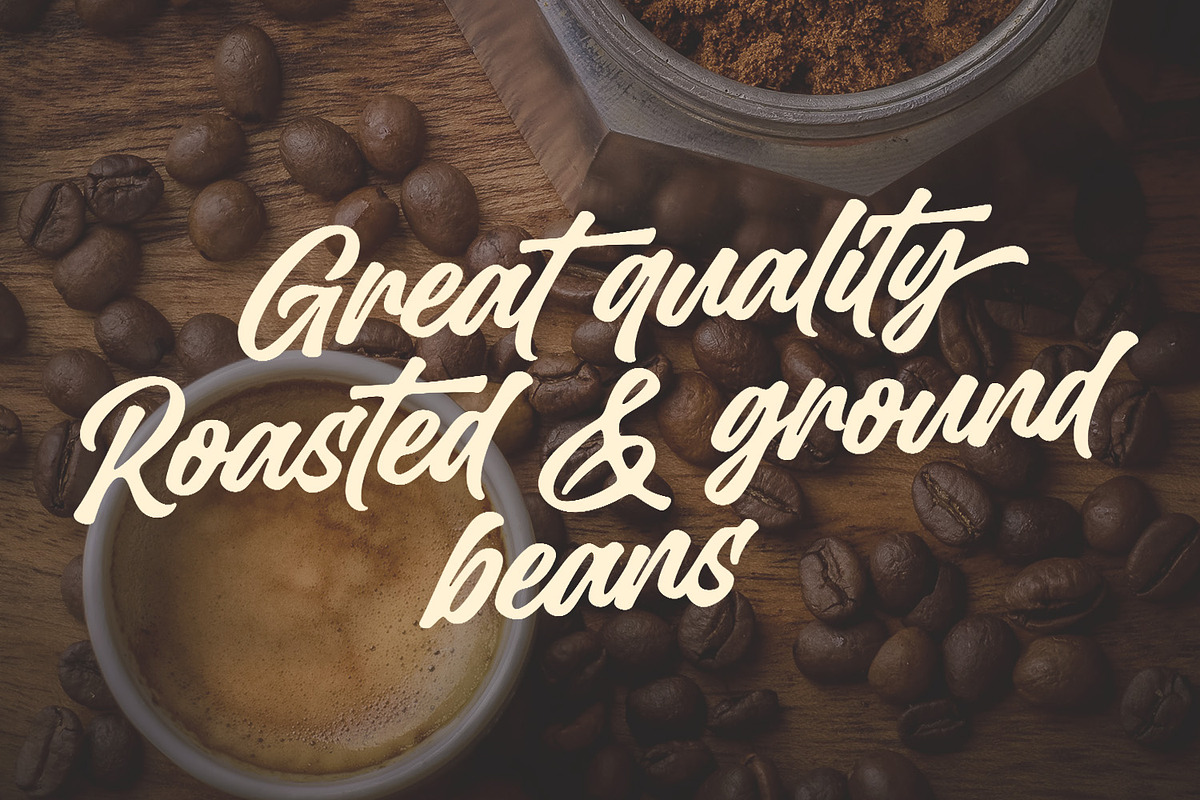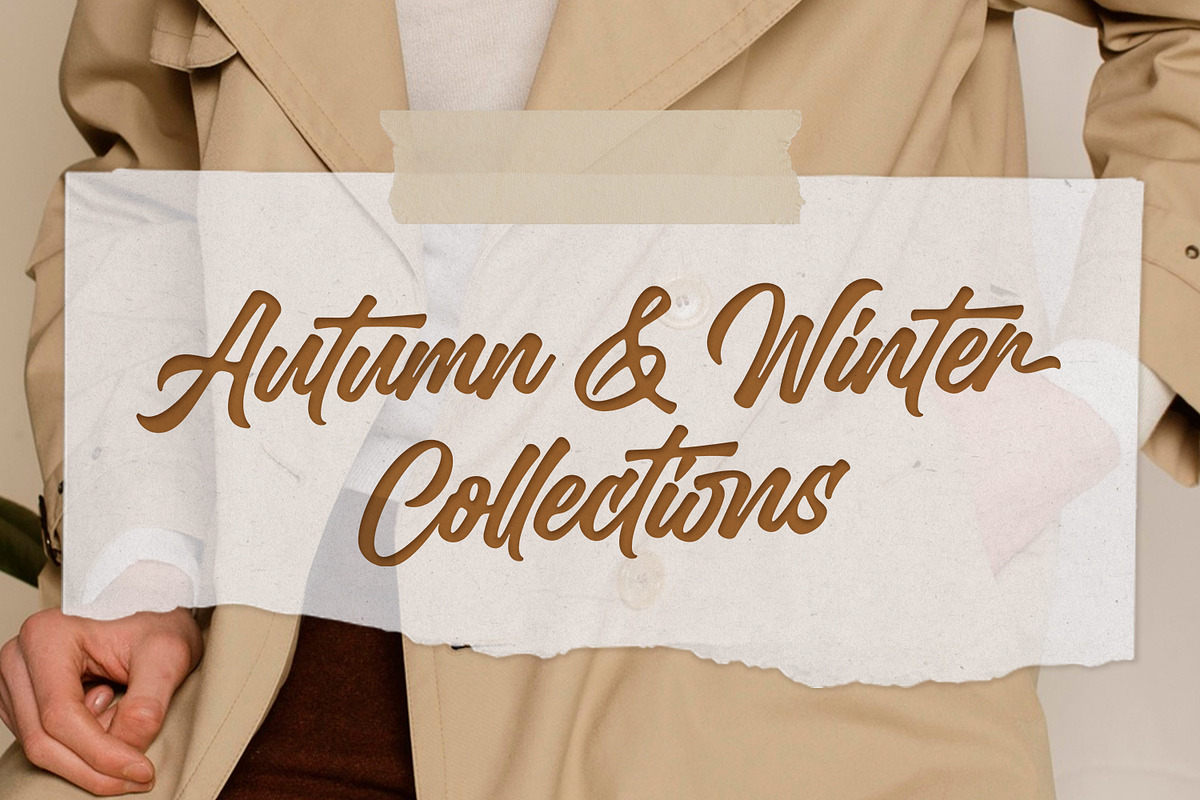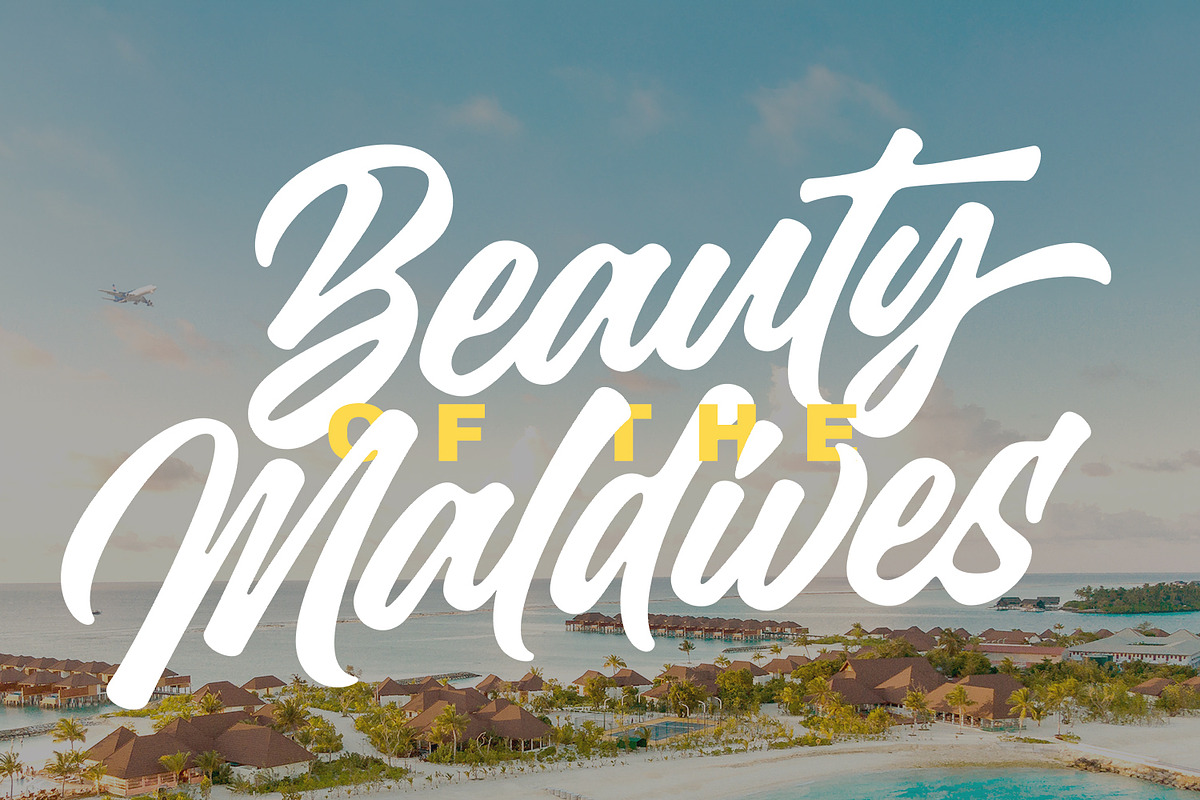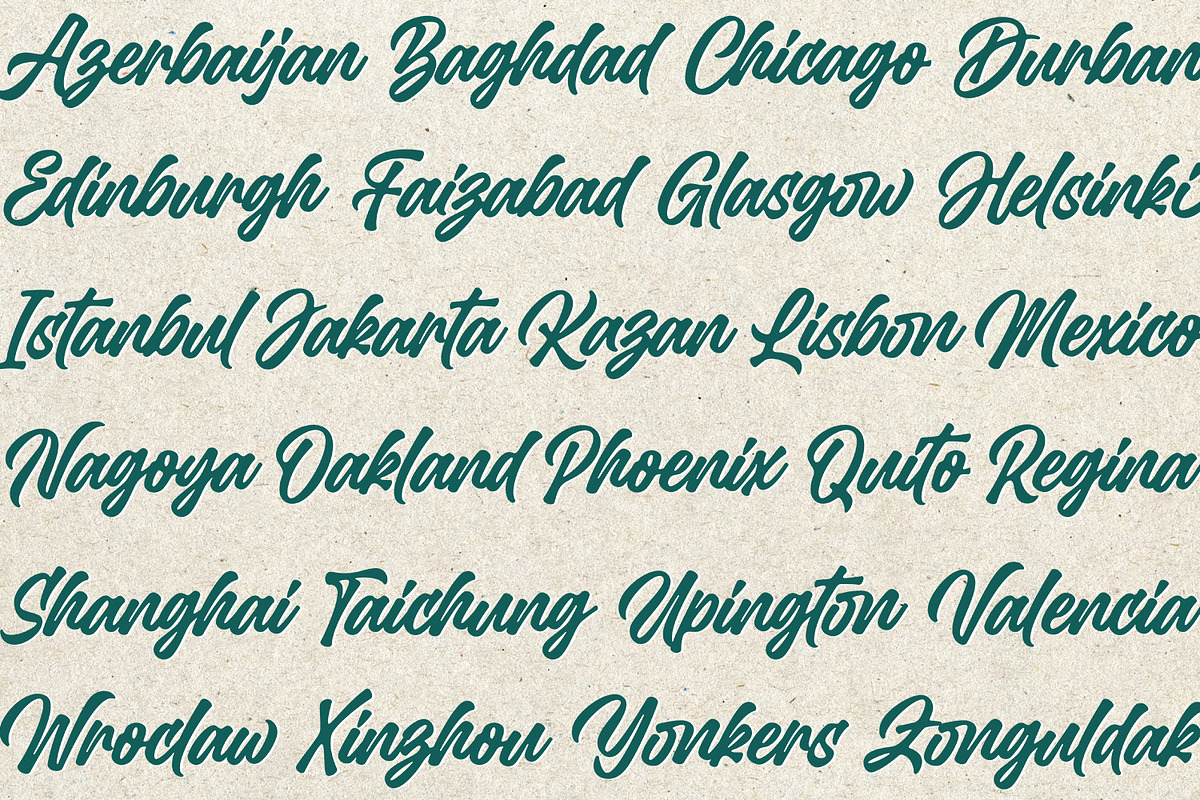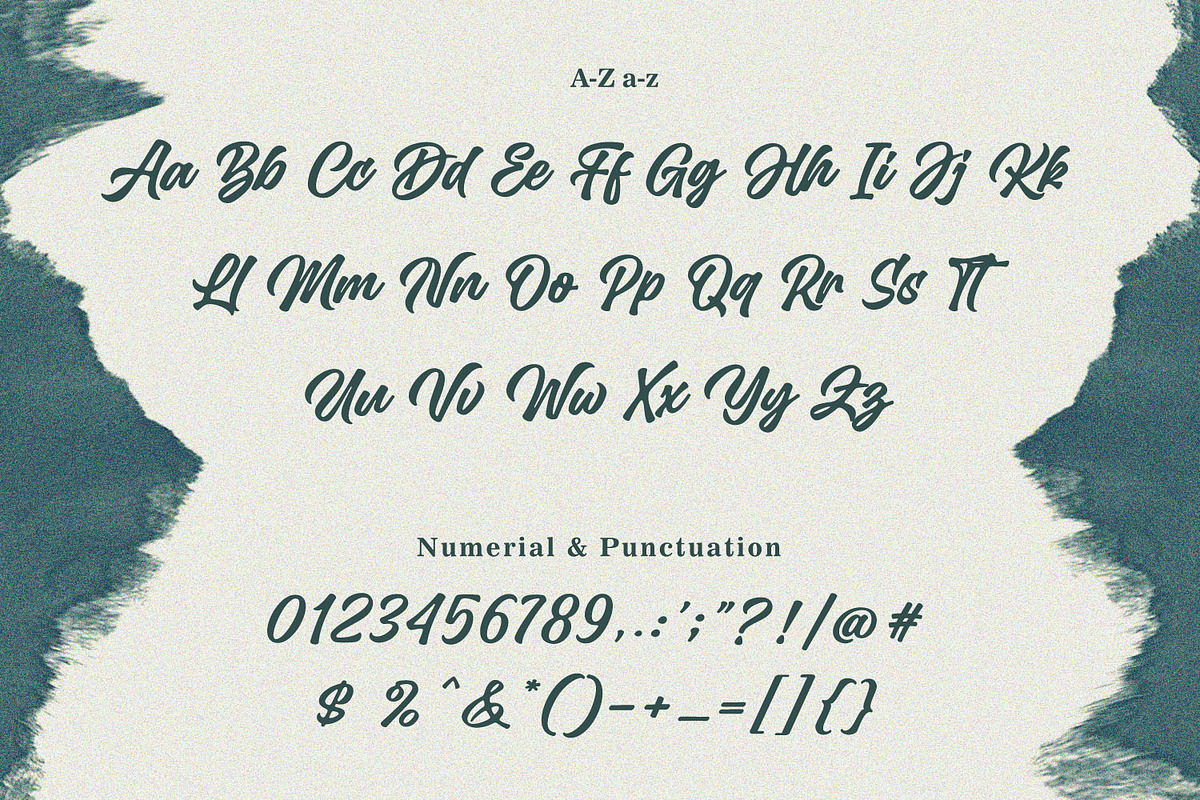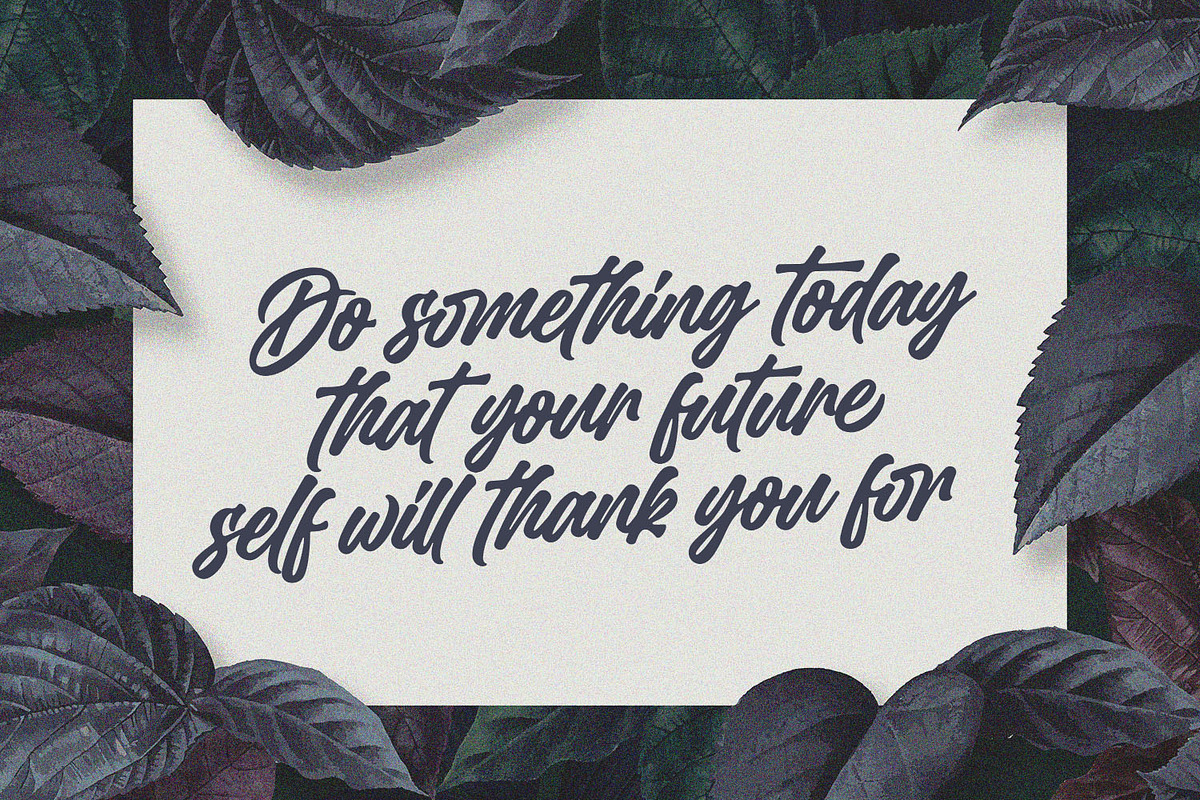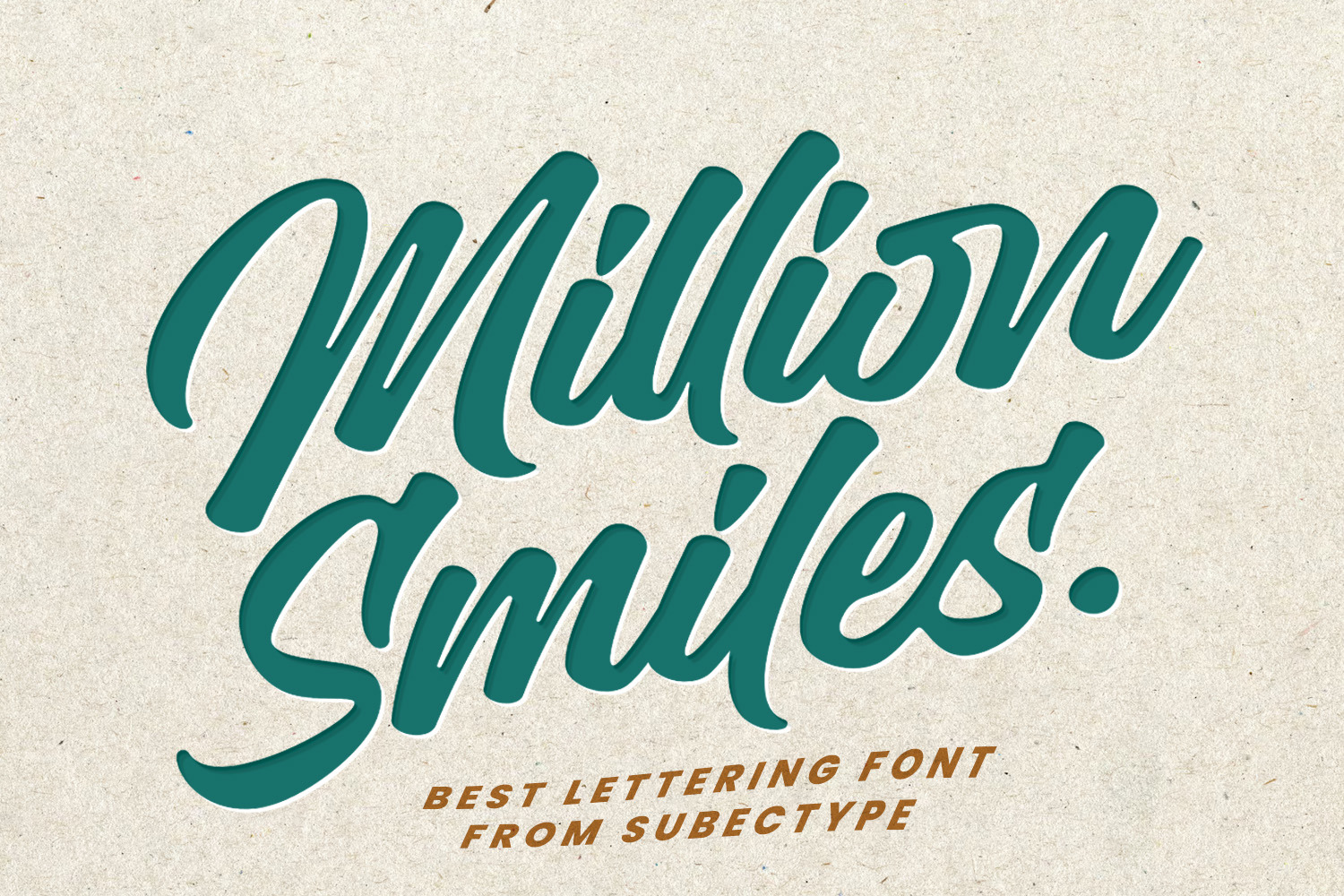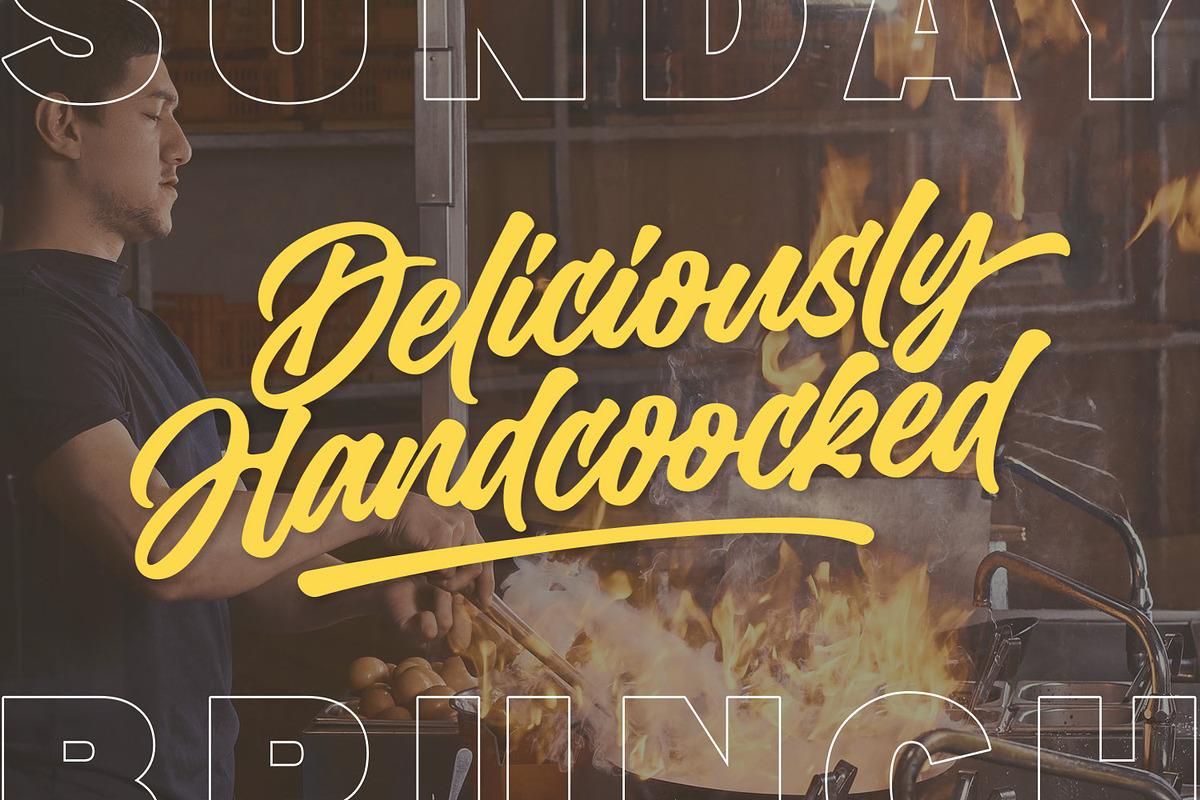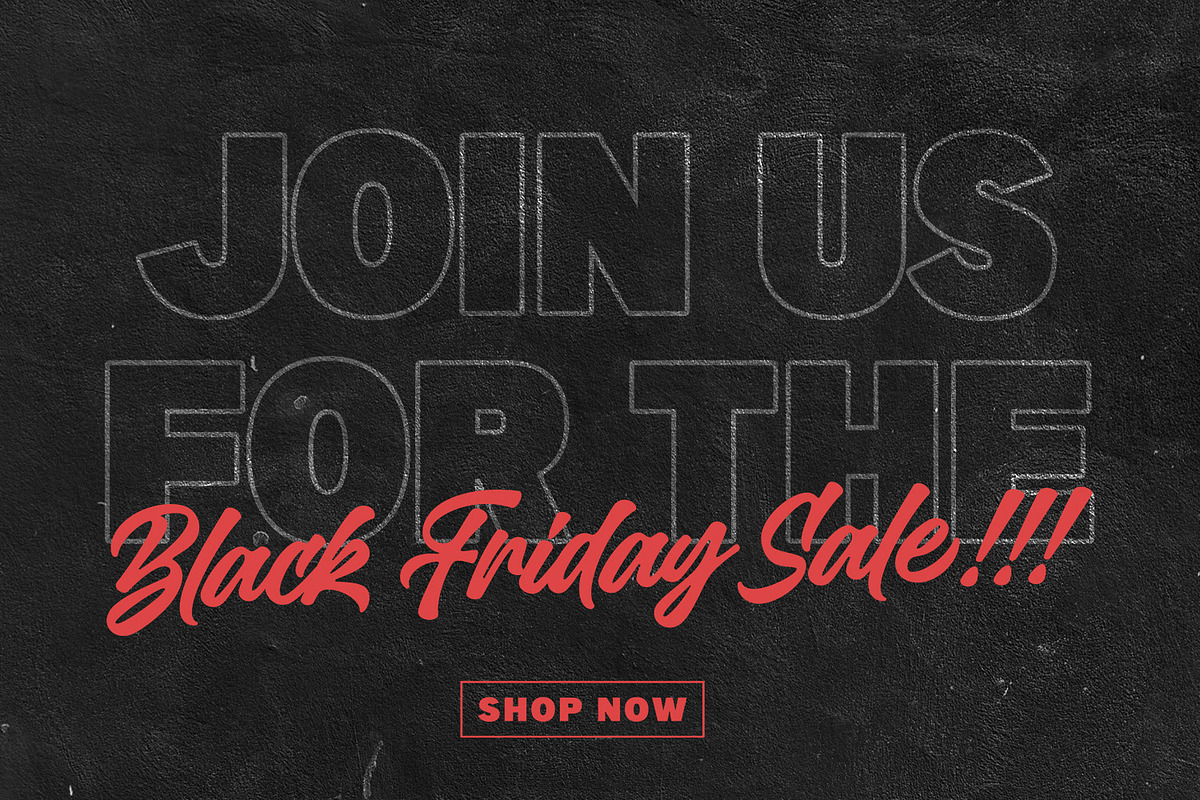
Million Smiles - Lettering Font
Introducing our newest font, "Million Smiles", a casual bold script font with hand-letterred style. Million Smiles is an upgraded version of our previous font, "Billion Dreams". In this new version, we've rounded the edges a bit for a softer look, compared to the sharp edges of the old one. This enchanting font is the perfect choice for design projects that aim for a fun, urban, and classy vibe. It adds a touch of cool to your creativity without losing its elegant charm.